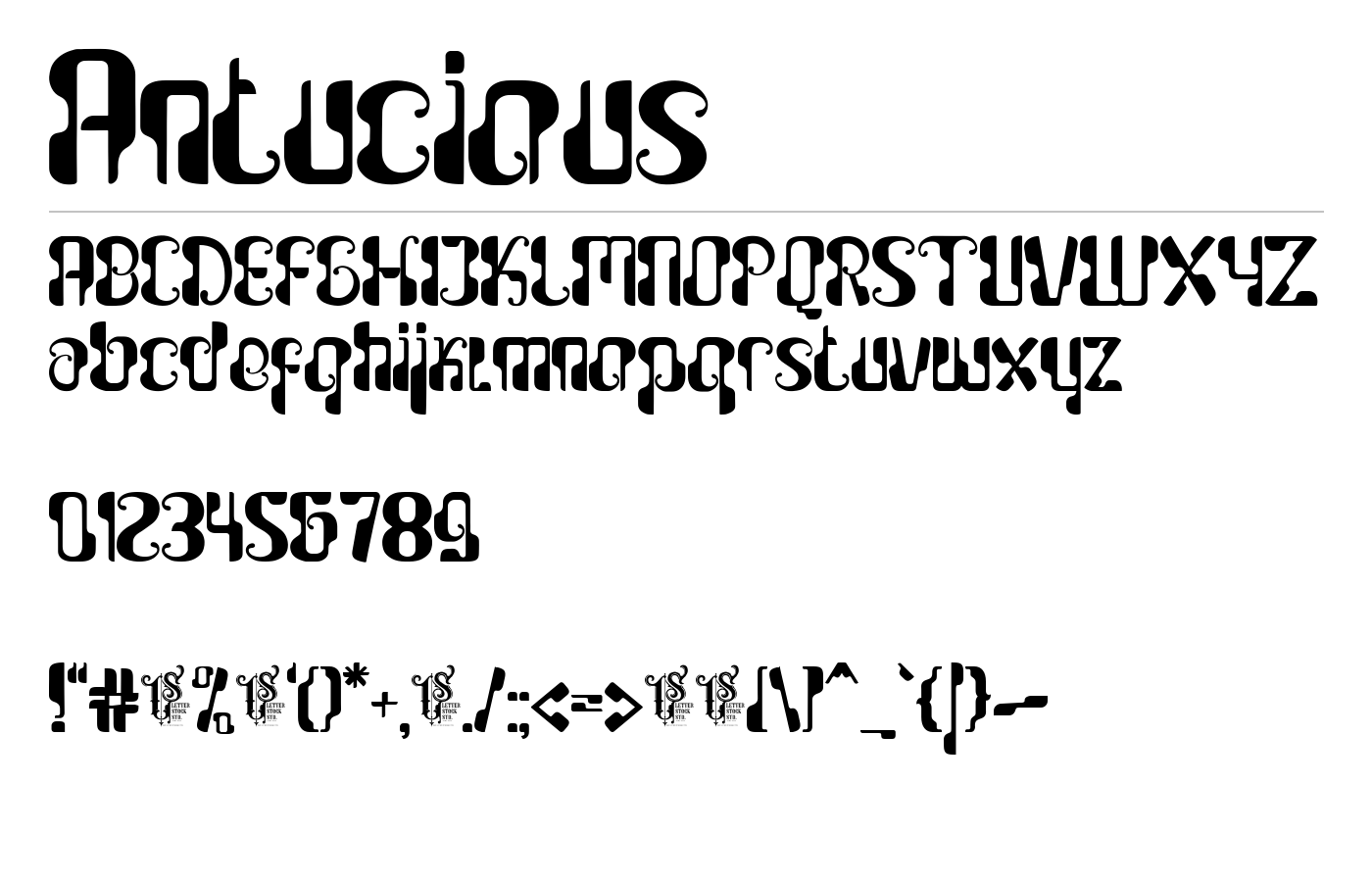
Antucious is a bold, decorative serif font with a unique blend of high contrast strokes and intricate, almost calligraphic details that create a modern yet vintage vibe. Its tall, condensed letterforms with bracketed serifs and distinctive shapes make it ideal for eye-catching headlines, logos, and creative branding where a strong personality and artistic flair are desired. This font works best in designs that seek to stand out with a stylish, avant-garde touch while maintaining readability.
Antucious Font
About Antucious Font